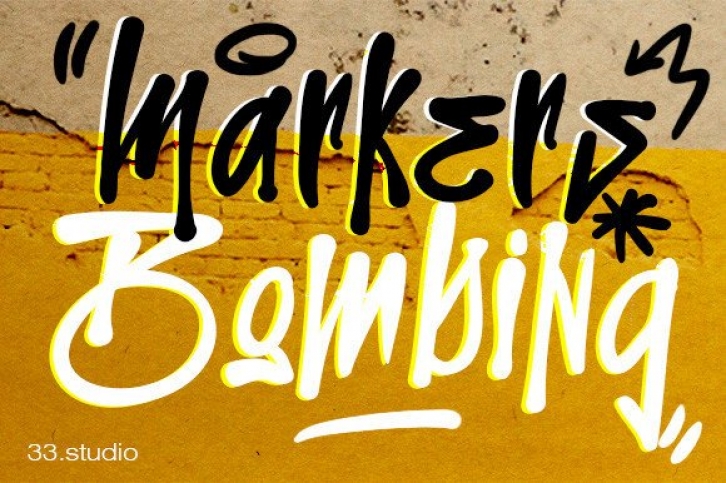
Markers Bombing is a cool graffiti-style display font, featuring a street art vibe. This font is suitable for designs such as t-shirts, sportswear, logos, advertisements, clothing, and more.